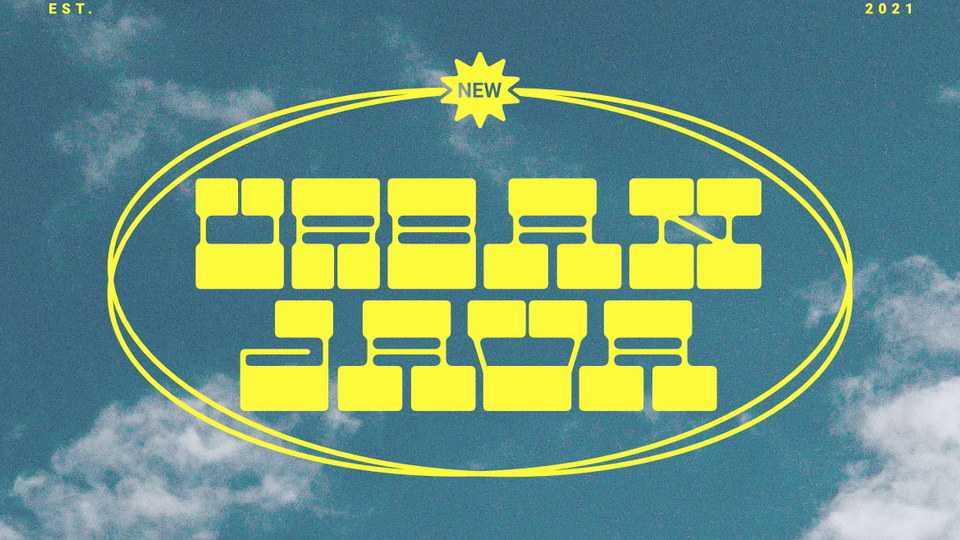
Urban Java Font › Fontesk – Download Grátis
Download Urban Java font, a rounded display slab serif typeface. Urban Java was formed to refresh a contemporary youth street design.